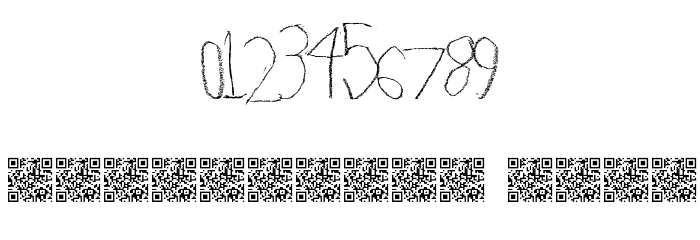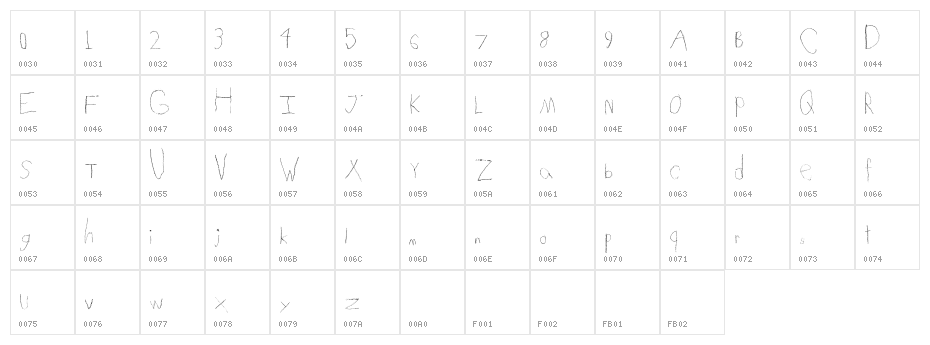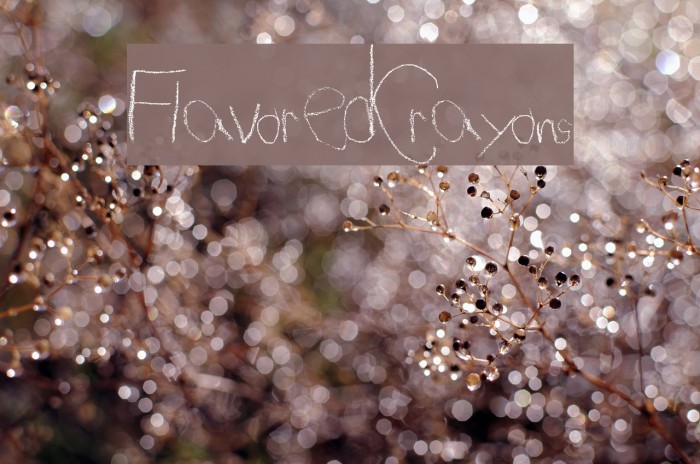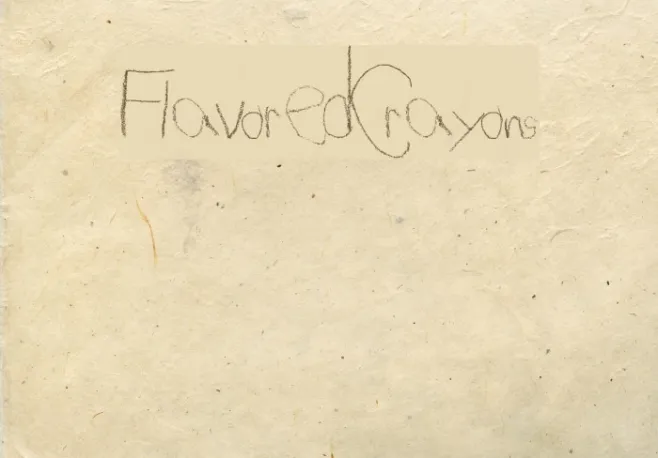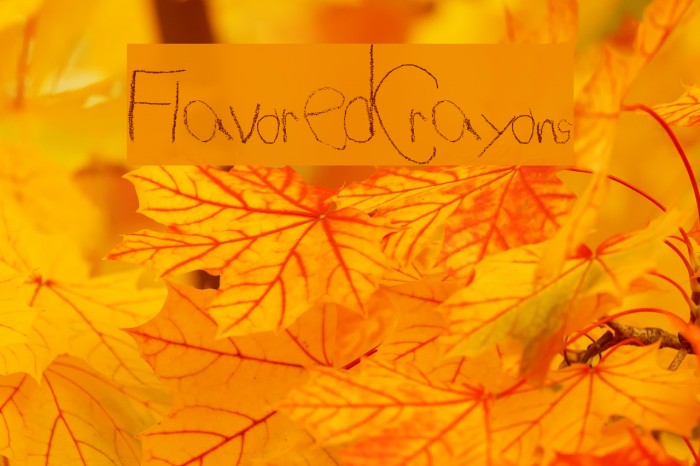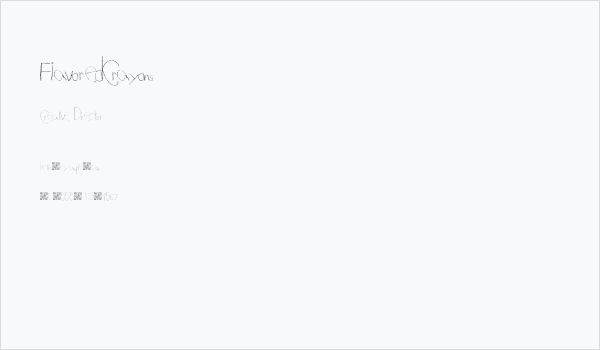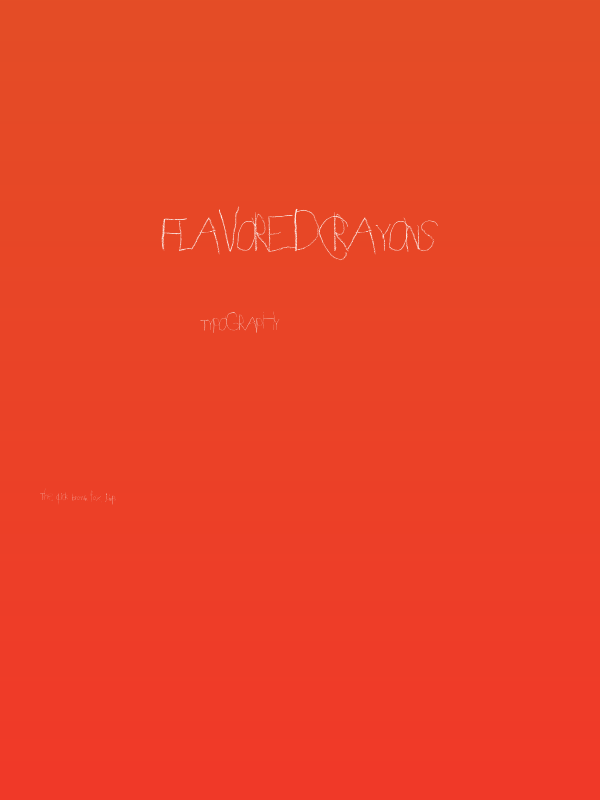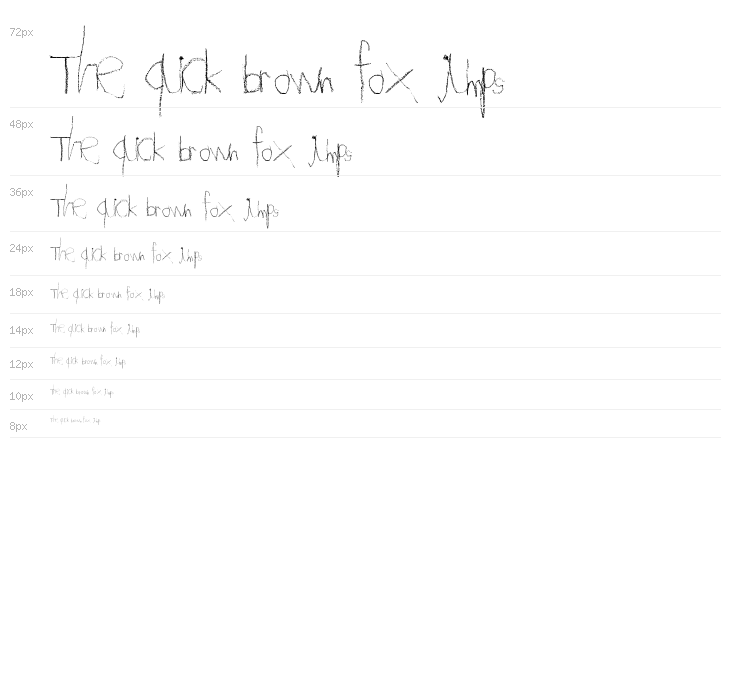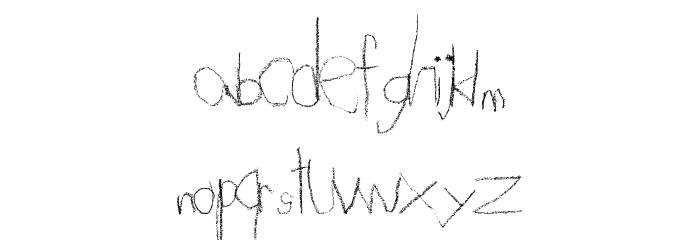
FlavoredCrayons Font
FlavoredCrayons Description
This font exudes a playful and whimsical charm, reminiscent of a child's crayon drawing. The letters are irregular and slightly wobbly, giving them a hand-drawn appearance that feels both casual and endearing. The strokes are uneven, with varying thickness that adds to the informal and spontaneous feel. This font captures a sense of innocence and creativity, making it ideal for projects that aim to evoke nostalgia or a sense of fun. The characters are loosely spaced, enhancing the relaxed and carefree vibe. It's perfect for designs that want to convey a sense of playfulness and imagination.
| Proposed Projects | Ideal for children's books, playful branding, educational materials, and creative projects. |